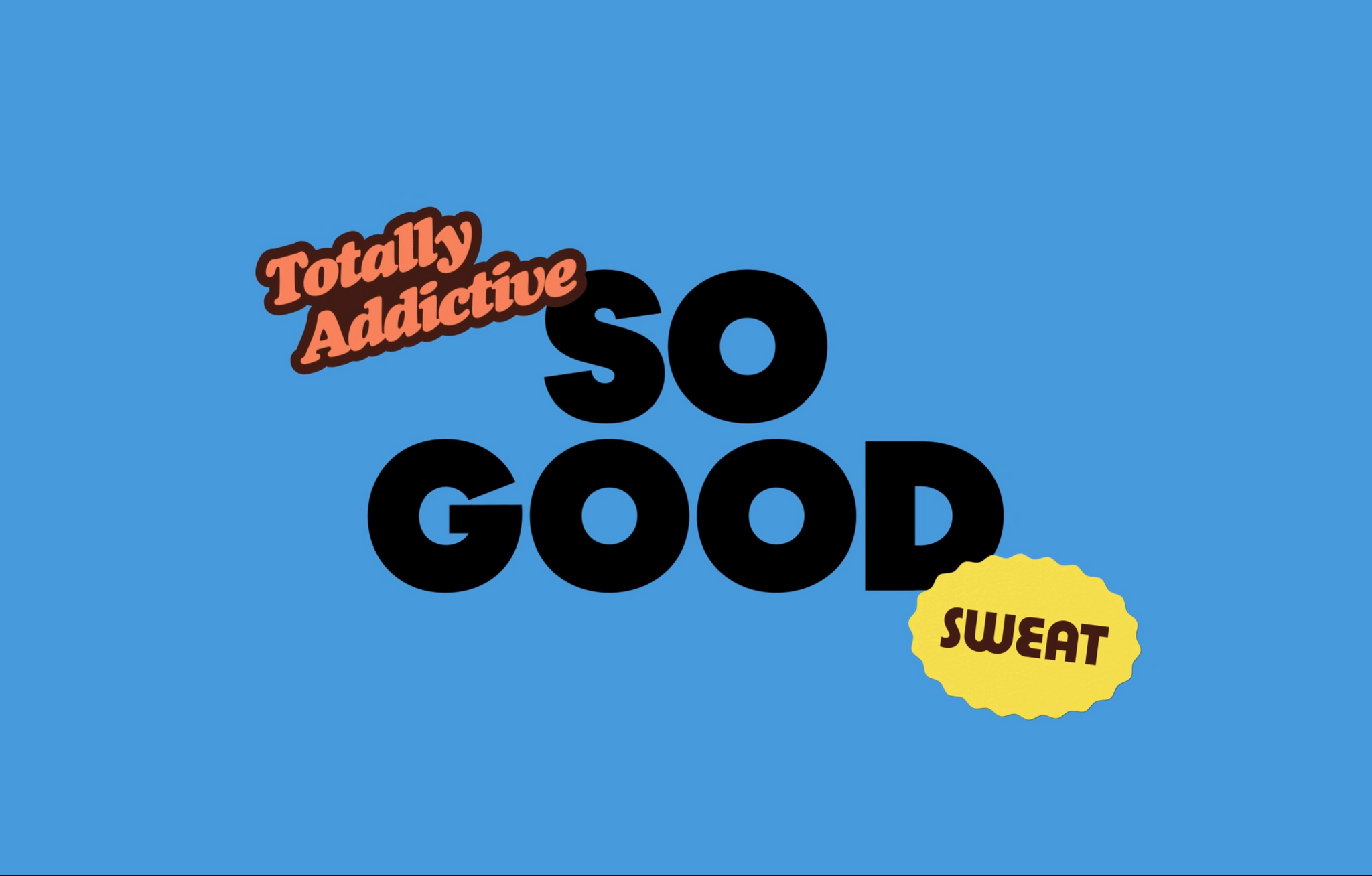
With more than 13 locations, ever-growing through franchise agreements, Clapham approached Bandit Design Group to rethink the Peaches brand from the ground up.
The identity dials up Peaches’ signature attitude with a bold, self-assured type suite, an irresistible colour palette, a retro-inspired graphic system, and iconic art direction in full colour. The refreshed colour palette brings main-character energy with a soft nod to nostalgia. Juicy pinks, warm peaches and cherry reds bring the heat, balanced with thirst-quenching blues, keeping it real and relatable (think Aussie summer meets Video Ezy). These colours don’t whisper wellness, they shout ready to burn.
The graphic system is retro, cult, and cool: old-school frames, nostalgic fruit stickers, and synthwave-inspired patterns all embody that post-class high. These assets allow the brand to effortlessly balance structure with play. These elements work together to amplify the Peaches personality and confidence that has always been at the heart of the brand. The result is a scalable brand system that holds its own at every level, from in-studio experiences through to digital and community-led interactions. With more colour, more fun, more energy, the new identity turns Peaches all the way up without losing what has always made them so unapologetically themselves.
The culture, loyalty and personality were already there; the identity just needed to catch up. “We wanted a refresh of our visual identity and a website that absolutely SLAPS,” Clapham tells us. “Something that feels like a disruptor in the industry. Peaches is all about moving away from the black and white, sterile, precision-led, clean look of the fitness and wellness space and leaning into fun, retro flare – with a tongue-in-cheek vibe and a big dose of creativity and unapologetic uniqueness.”
For Bandit, this meant going beyond a visual refresh to create a complete brand overhaul. The studio sharpened Peaches’ positioning, unified its visual and verbal identity, and developed a flexible system for its growing range of fitness offerings. Everything Peaches offers sits under the one name, with no sub-brands. “What makes Peaches unique has always been the community it creates, regardless of whether someone arrives for a mat class, joins a run club, trains online through the strength programme or opens the app for a recipe,” explains Bandit’s Senior Designer Nina Szewczyk. “By repositioning Peaches as a lifestyle brand, mat Pilates remains the heartbeat of the business, while simultaneously allowing every other offering to become a natural extension of the same world.”
The retro graphic language draws on baseball-card frames, fruit stickers and synthwave patterns. “Rather than referencing one specific era, we pulled from a broader visual memory of growing up on Australia’s east coast in the 80s and 90s,” Design Director Ash Stewart tells us. “Corner shops, collectable cards, sun-faded signage and the optimism of 80s and 90s pop culture served as inspiration for a suite of assets connected by the same feeling of nostalgia. It was less about faithfully referencing a moment in time, and more about tapping into a collective memory and feeling.”
The existing wordmark was refined rather than reinvented. “We were open to totally redoing the logo, but in the end Bandit pushed for a ‘polish’ of our logo that is now hand-drawn and far more juicy,” Clapham reveals. Bandit leaned into the equity Peaches had already built, refining every curve, proportion and terminal to give it greater presence while retaining recognition. “The goal was for people to feel the difference before consciously noticing it,” Stewart continues.
Typography plays a similarly expressive role. Canada Type’s Clarendon brings the personality – a slab serif for moments that need warmth and recognition. Frama turns up the volume where impact is needed, and the clean Unica77 plays the functional role. “Every touchpoint has one dominant voice and one supporting voice, so even when two typefaces meet on the same surface, they feel collaborative rather than competitive,” explains Szewczyk.
The colour palette doesn’t whisper wellness – it shouts ready to burn. Juicy peach, electric pink and cherry red bring the heat, balanced by thirst-quenching blues, black and warm neutrals. Together, they give the palette enough range to shift between high-energy and more tonal moments.
That flexibility is particularly important across Peaches’ growing studio network. “Every Peaches studio has its own personality, from exposed brick in heritage buildings to contemporary spaces with floor-to-ceiling windows,” Szewczyk adds. Rather than applying every brand asset consistently, Bandit created a system that could respond to its surroundings. “The core brand elements were carefully defined to ensure each Peaches location feels unmistakably unified. The flexibility comes through how they’re applied,” Stewart notes.
Alongside the visual overhaul, Bandit developed a verbal identity that gives the brand its attitude beyond the graphics. Rather than falling into the familiar, soft language of wellness, the tone is confident, energetic and cheeky. “The visual identity creates instant recognition, but the verbal identity creates an emotional response,” notes Stewart. “The copy gives the brand its unmistakable attitude and makes people feel like they’re already part of the club.”
For Clapham, that feeling is what ultimately made the rebrand successful. “The absolute BEST part about this brand refresh, rebrand, glow up, makeover – however you want to word it – is that it truly feels MORE AUTHENTIC than our old creative.” Together, the visual and verbal systems create a brand built to grow while staying true to the culture that made Peaches special in the first place. The result is a bold, culturally connected lifestyle brand with movement at its heart – and a system built to take that feeling anywhere.